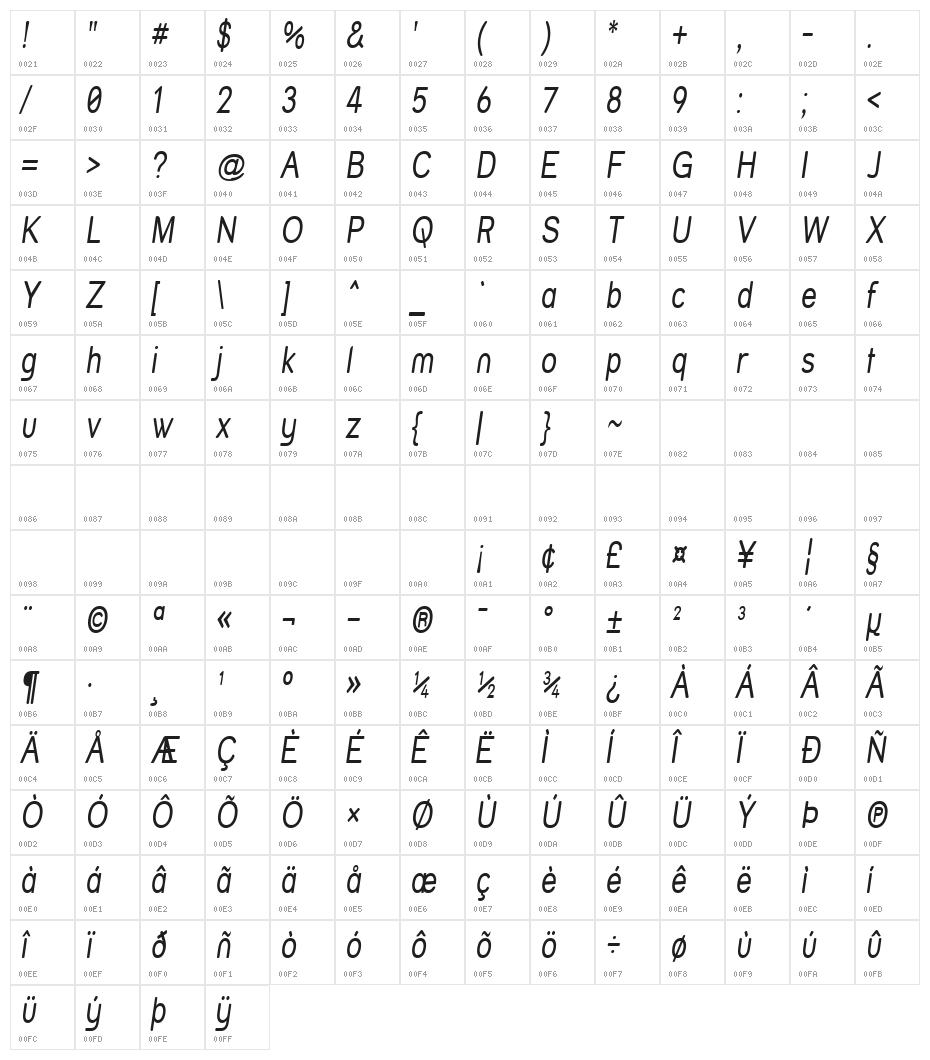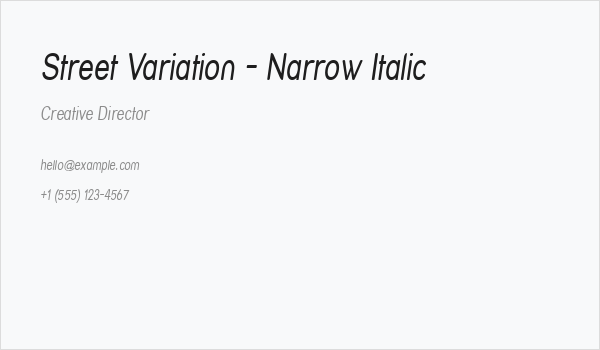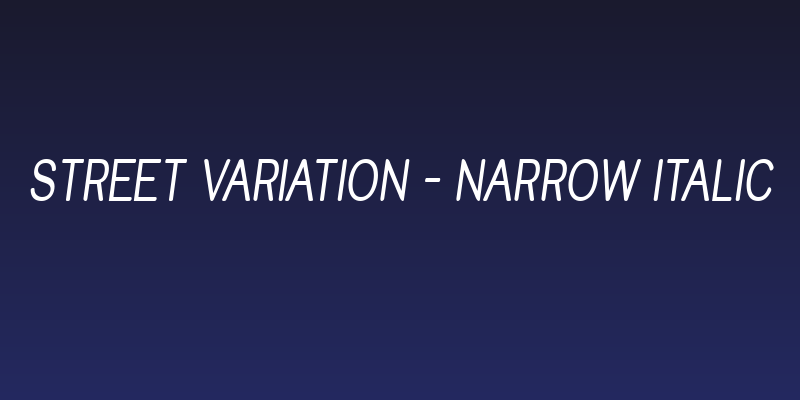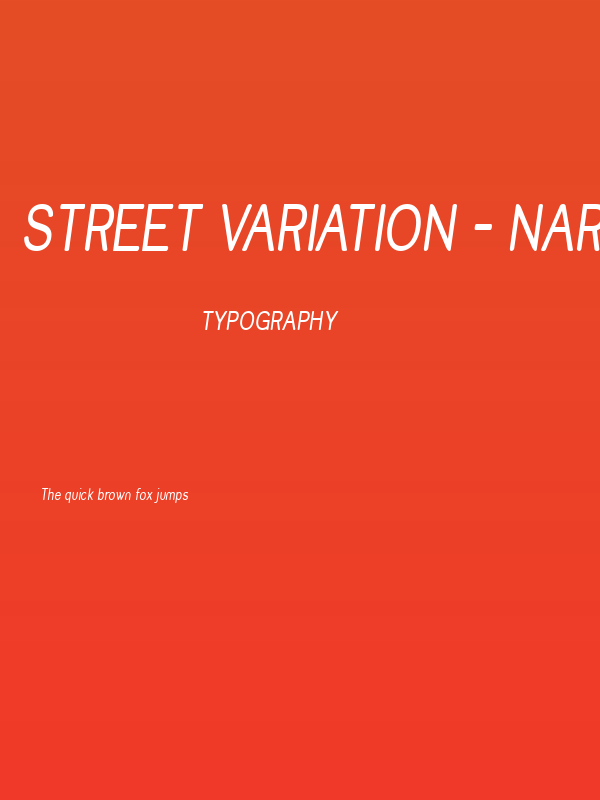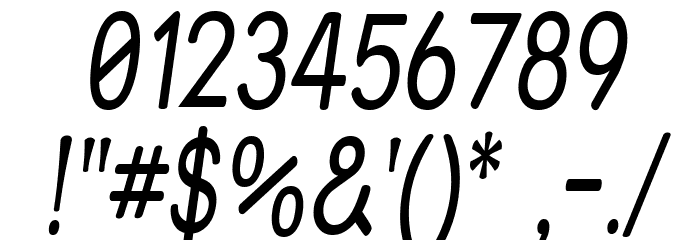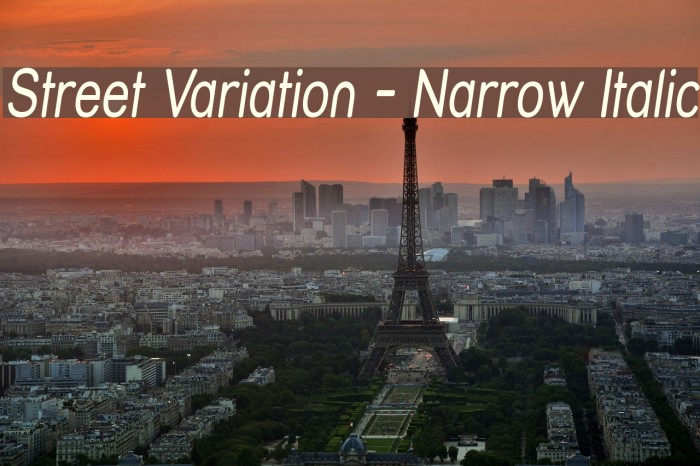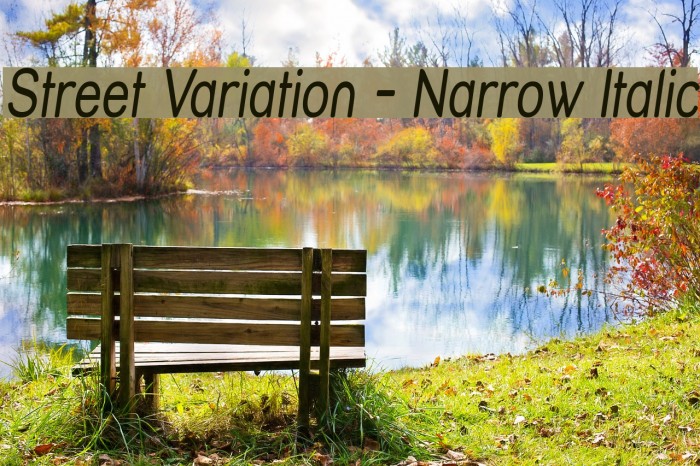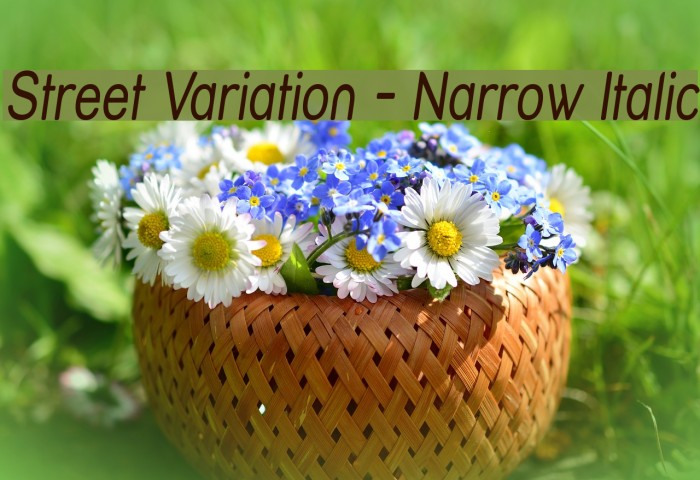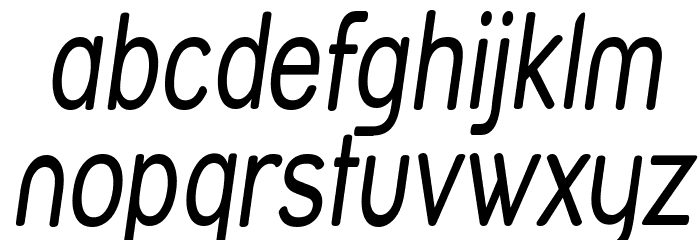
Street Variation - Narrow Italic Font
Street Variation - Narrow Italic Description
This font features a sleek and modern design with a narrow and italicized style. The characters are slightly condensed, giving it a streamlined appearance. The strokes are consistent and smooth, with a medium contrast that adds to its readability. The font maintains a uniform width across all characters, enhancing its clean and professional look. The italic slant adds a dynamic and contemporary feel, making it suitable for a variety of design applications. Its simplicity and elegance make it versatile for both digital and print media.
| Use Case | Headlines, Body text, Logos |
| Proposed Projects | Ideal for branding, advertising, and editorial design projects. Suitable for use in digital interfaces, signage, and packaging. |